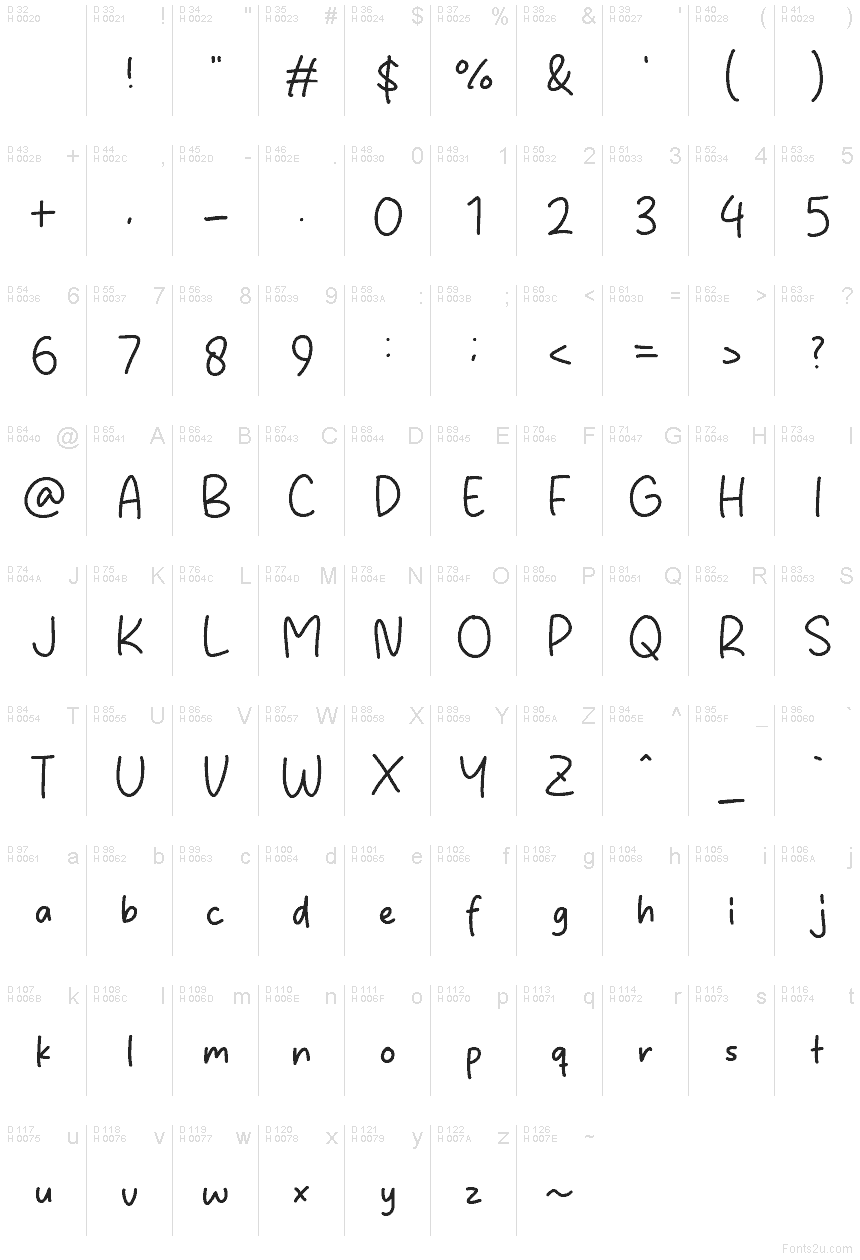
The Series
The Series font is a free handwritten font designed by Origin Type that embodies an approachable, friendly, and casual feel. Its simple strokes project quiet beauty, effective for combinations with other fonts and as standalone banners or headlines. The letters slightly vary in baseline position for a more natural hand looking effect each time they’re used.
The modern application potential of this typeface is numerous and includes t-shirt designs, label tags, package lettering, comic books covers (with a high dose of humor), postcards or invitation greeting phrasing, stamp marks on envelopes and packages and much more.